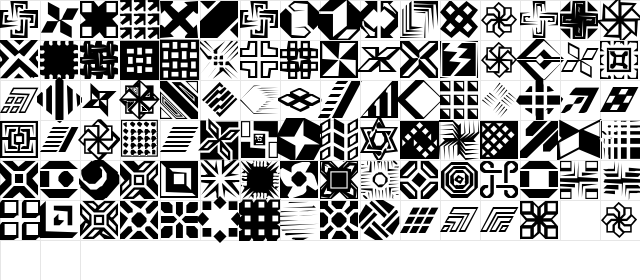
CarrDingbats1 Regular
Design Context for CarrDingbats1 Typeface
CarrDingbats1 is a composed and adaptable typeface that performs quietly and consistently across a wide range of design contexts.